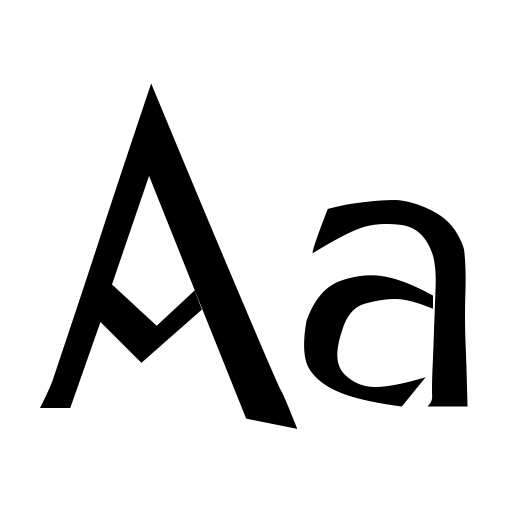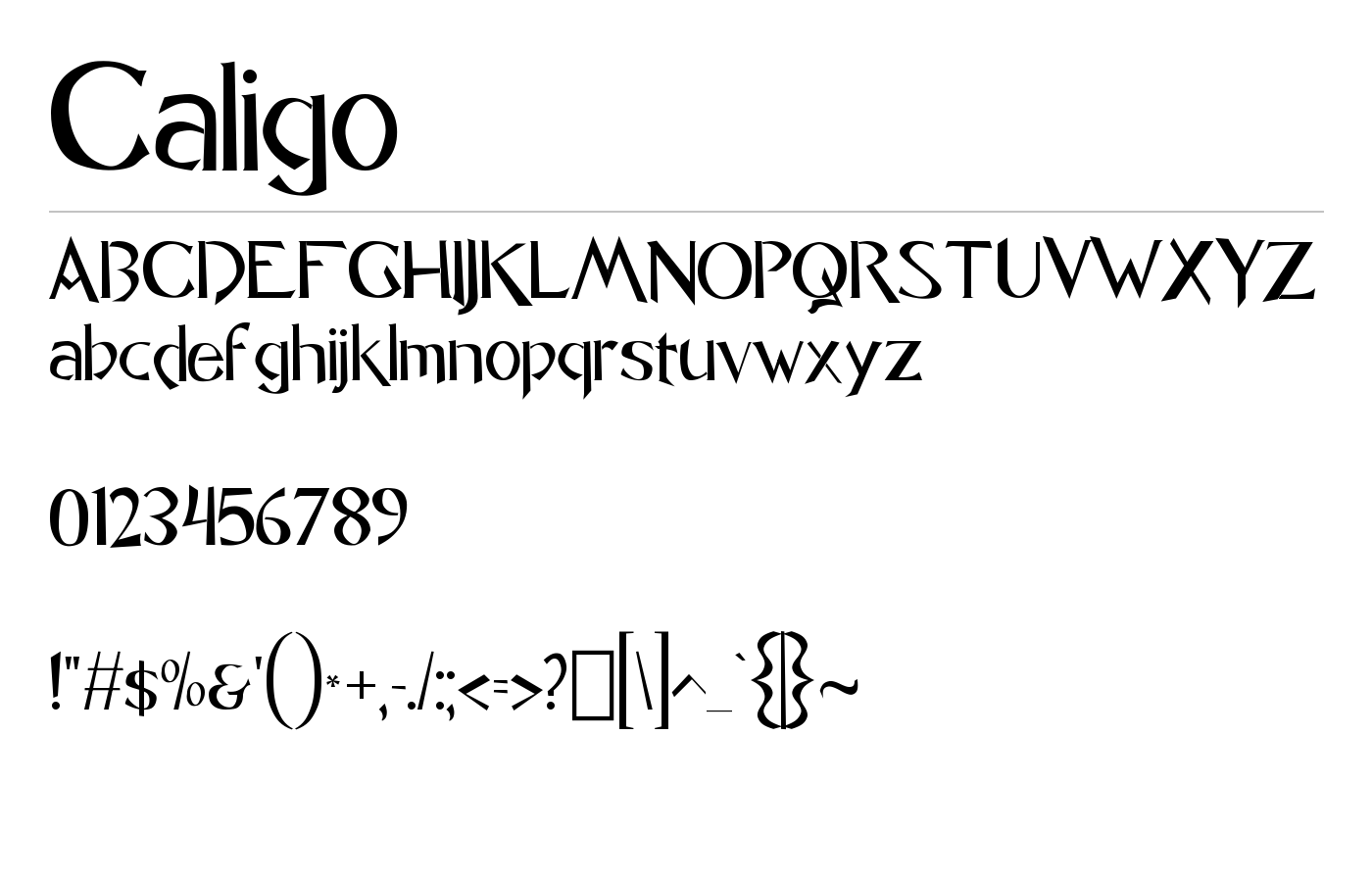
Caligo is a distinctive serif font with a sharp, elegant style that blends classic and modern influences. Its high contrast strokes, unique angular serifs, and playful letterforms give it a sophisticated yet edgy personality, making it ideal for creative branding, editorial headlines, and design projects that seek a striking, artistic flair. This font works especially well where a bold, memorable impression is needed without sacrificing readability.
Caligo Font